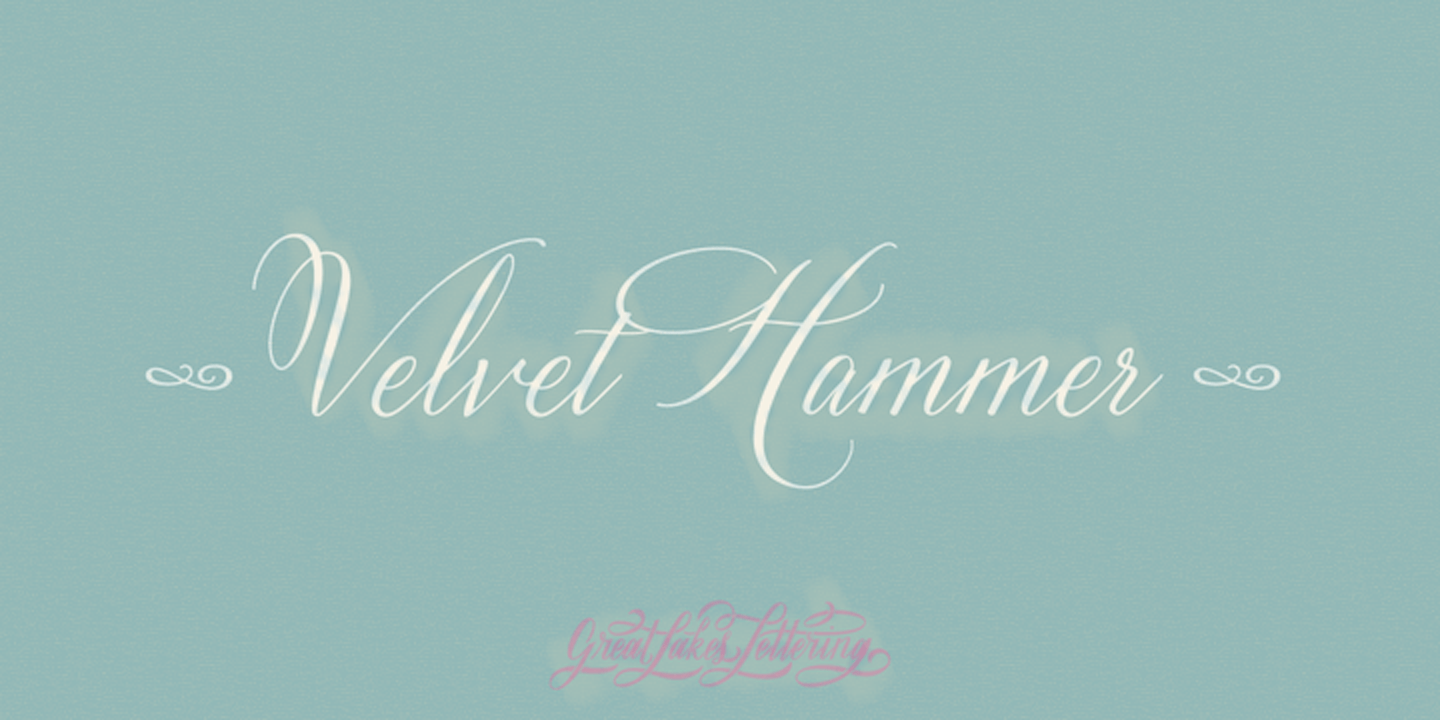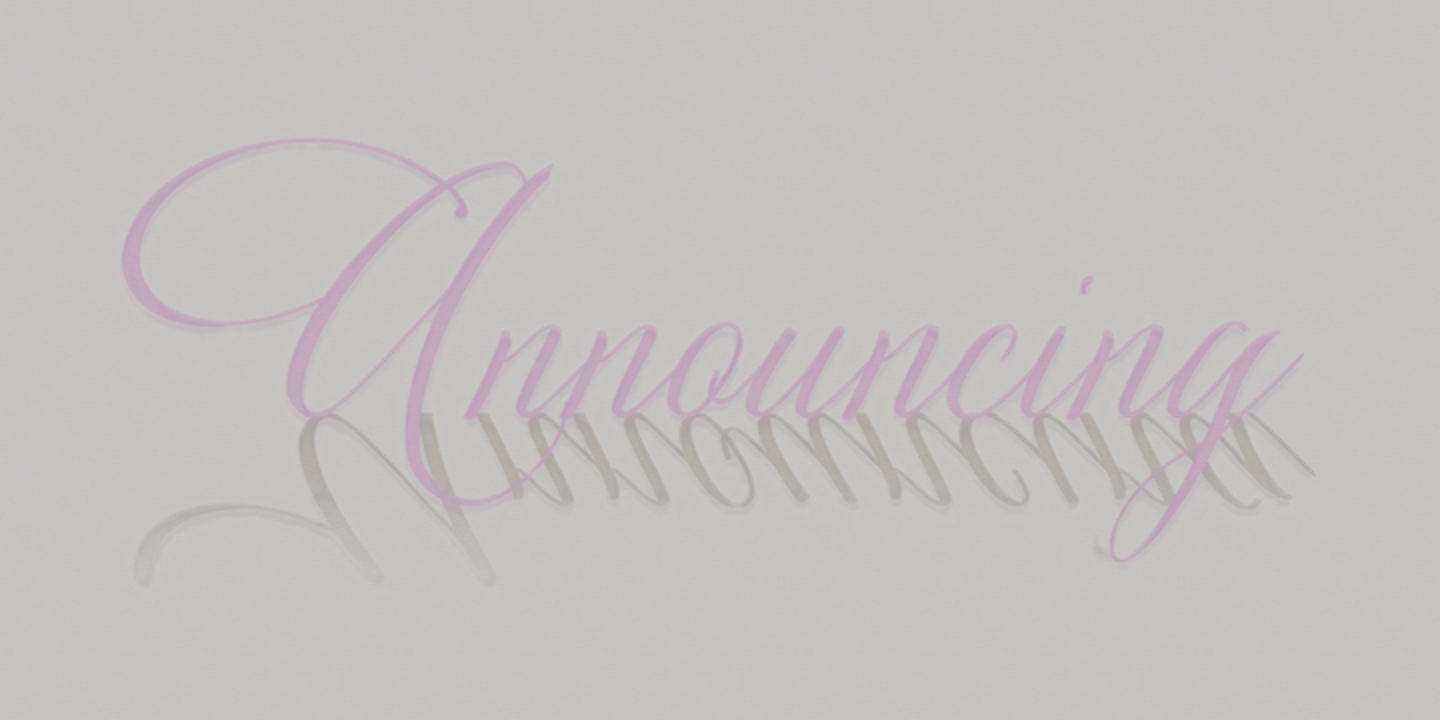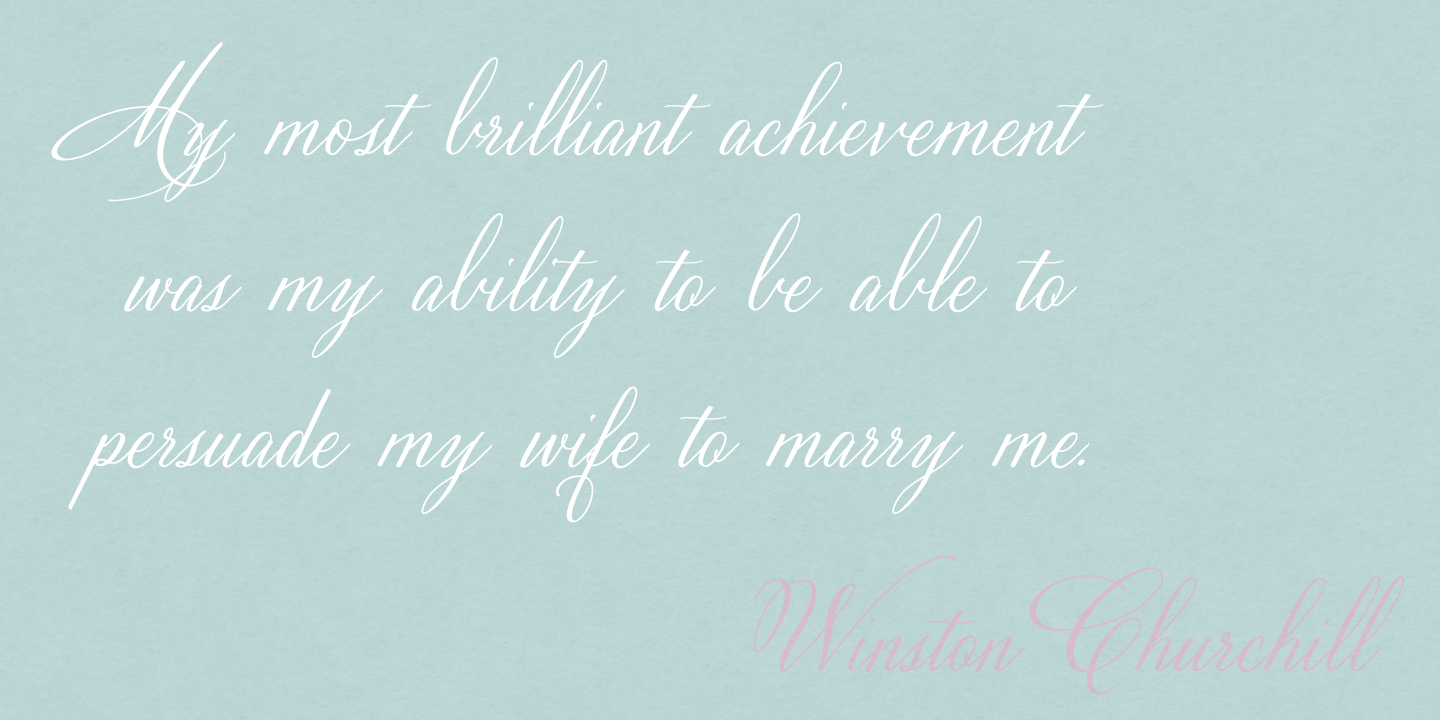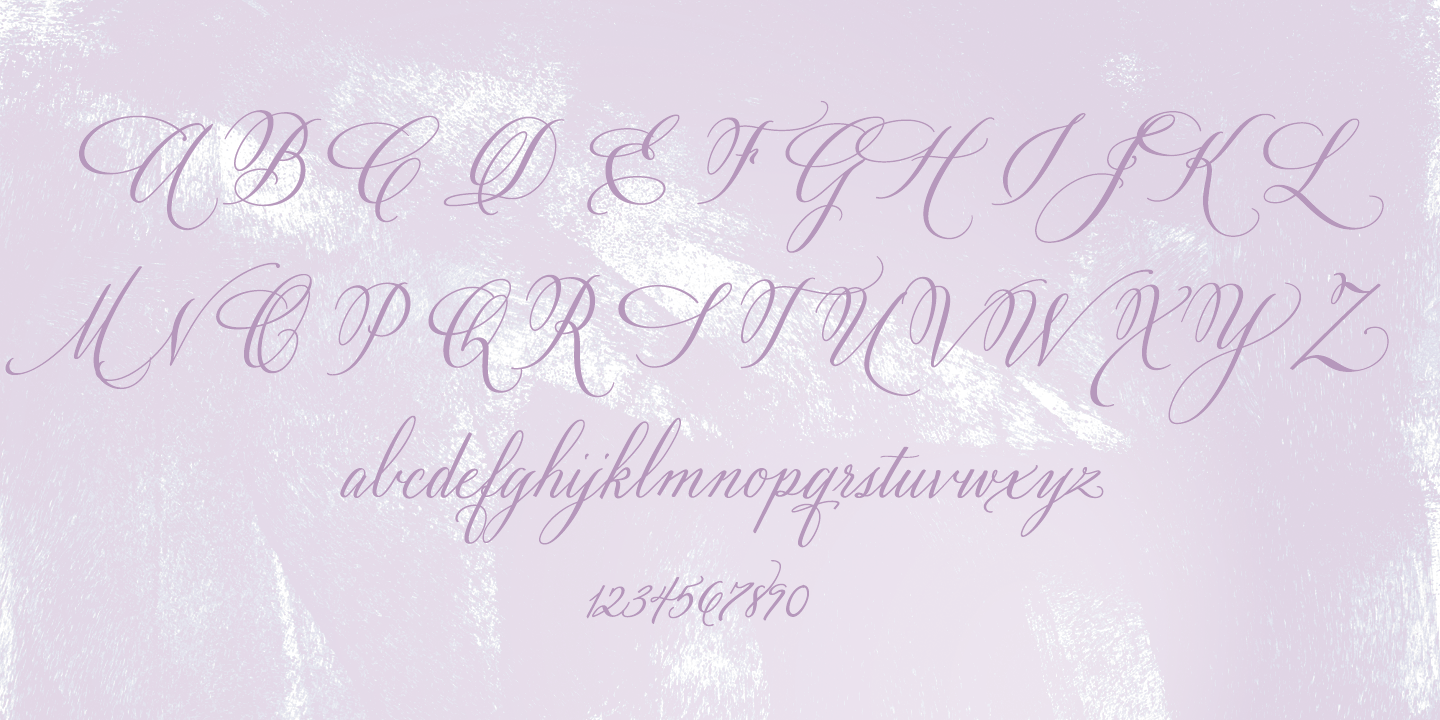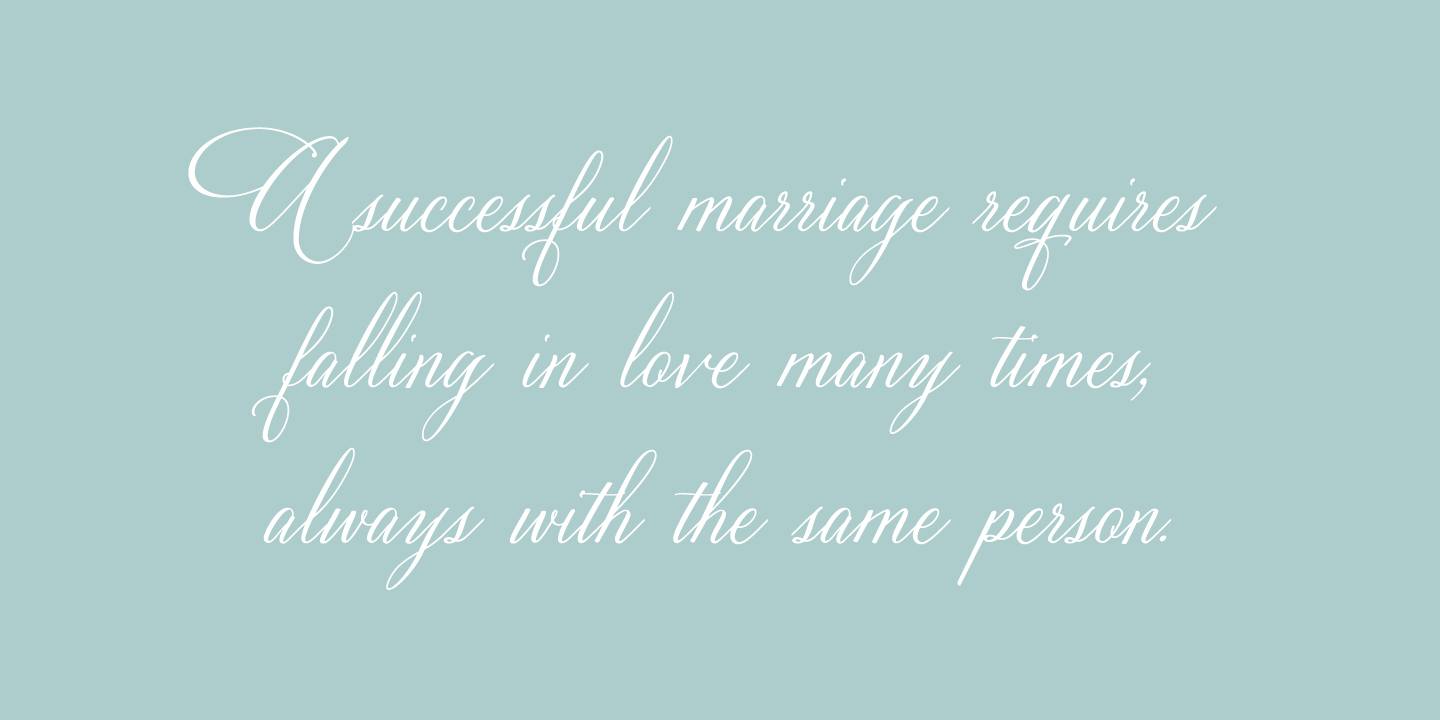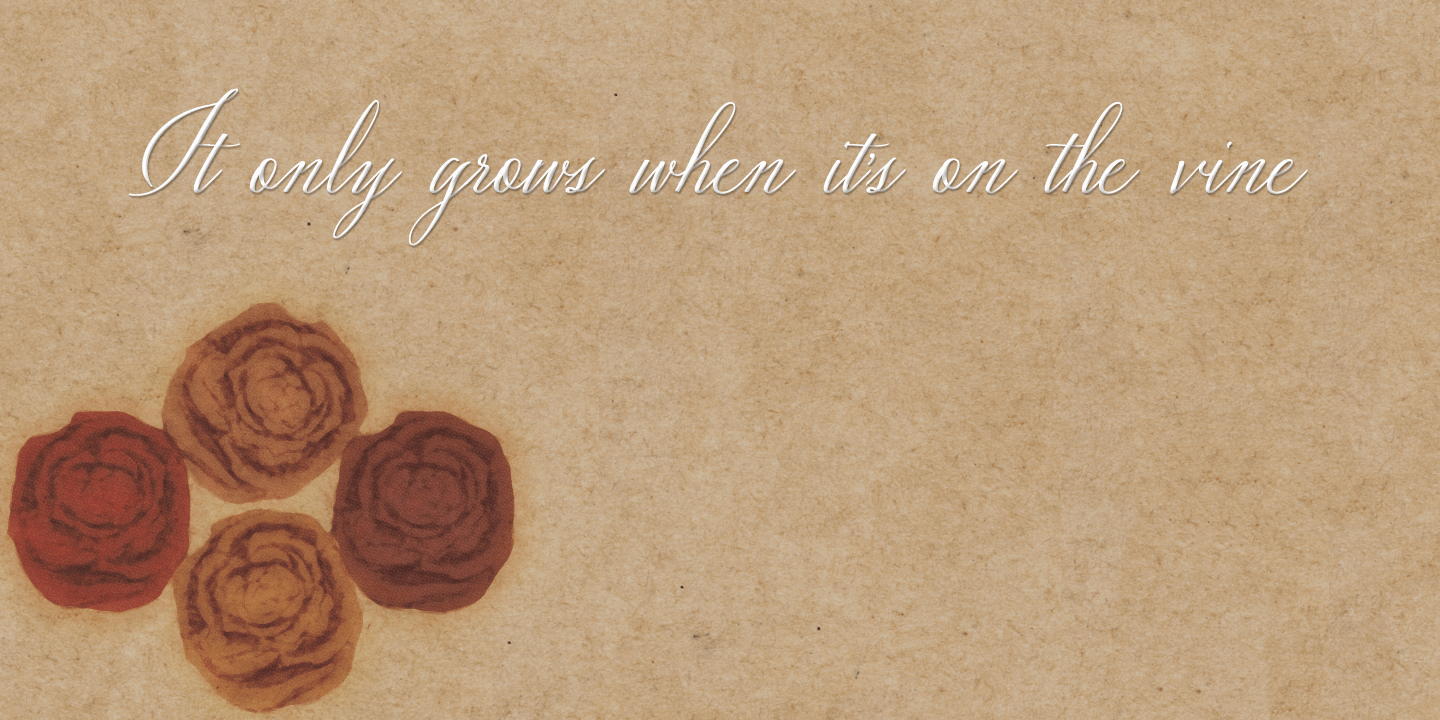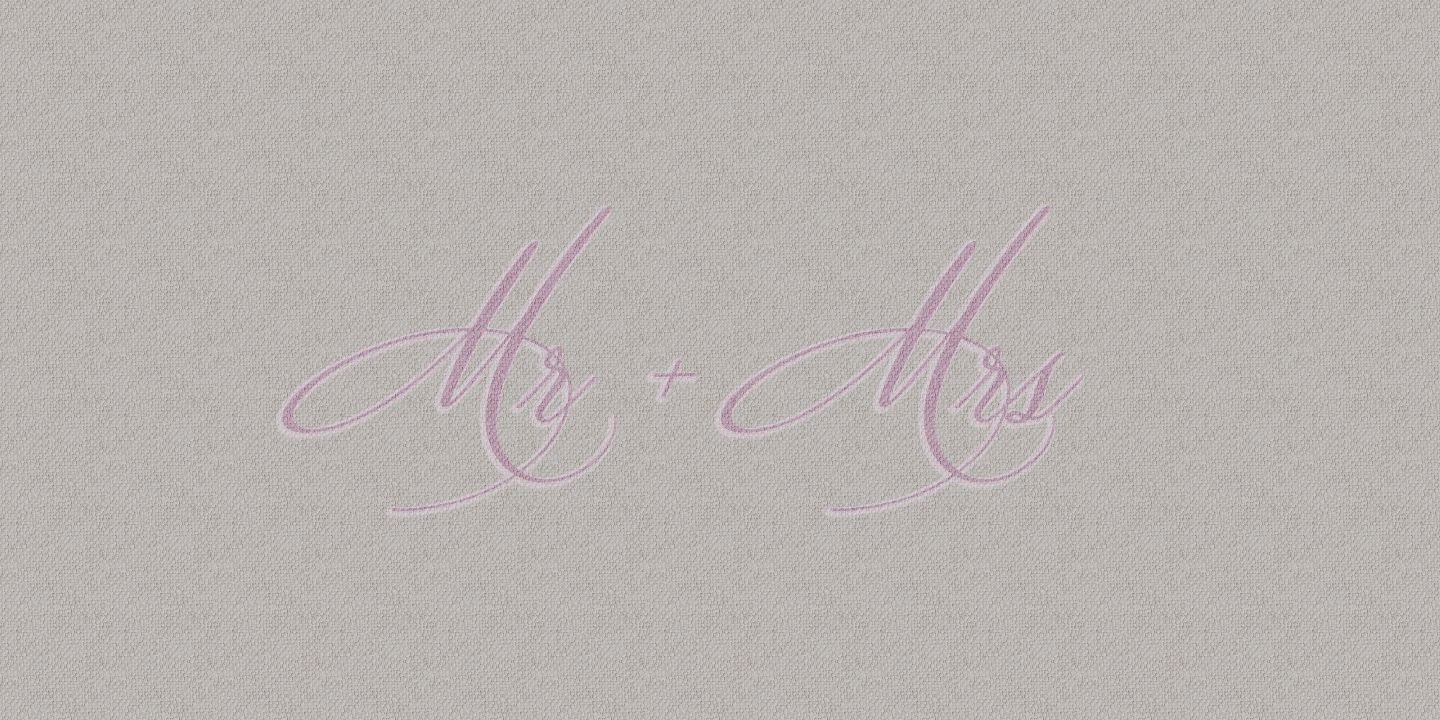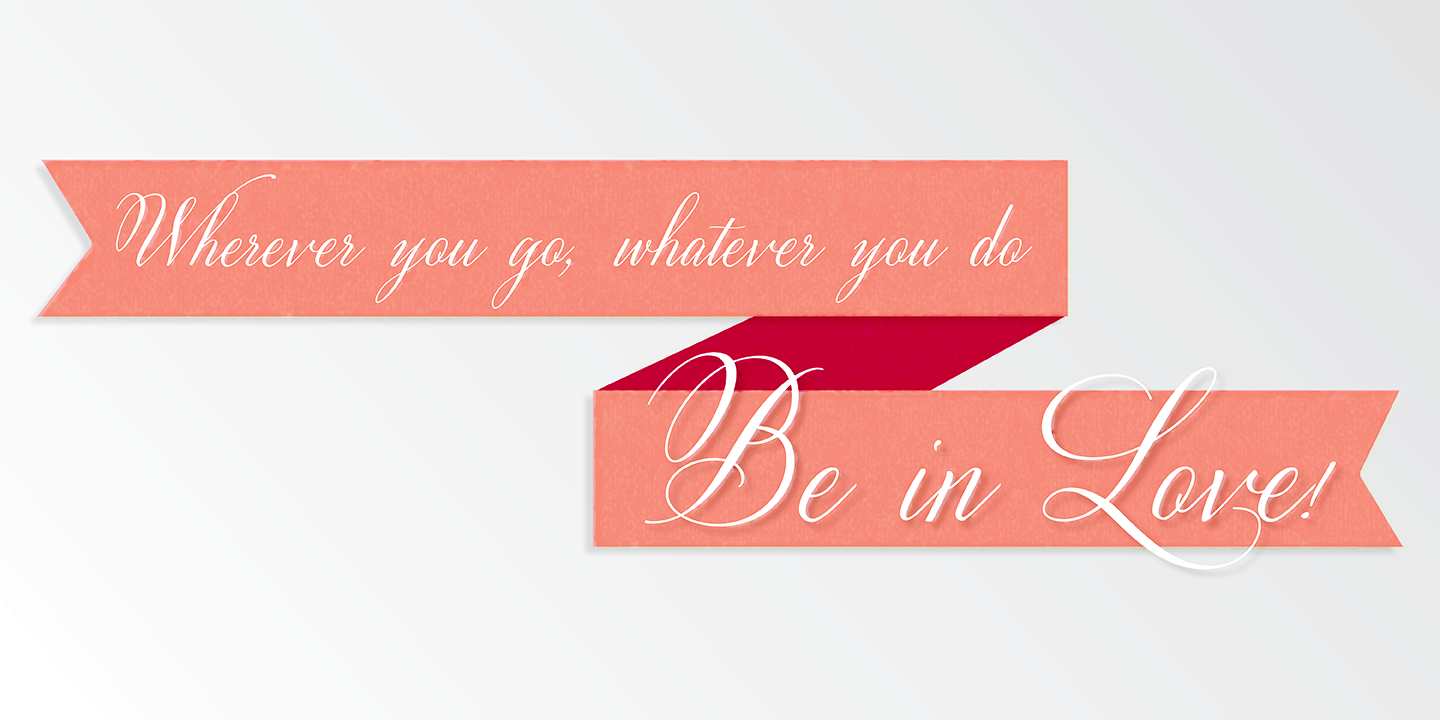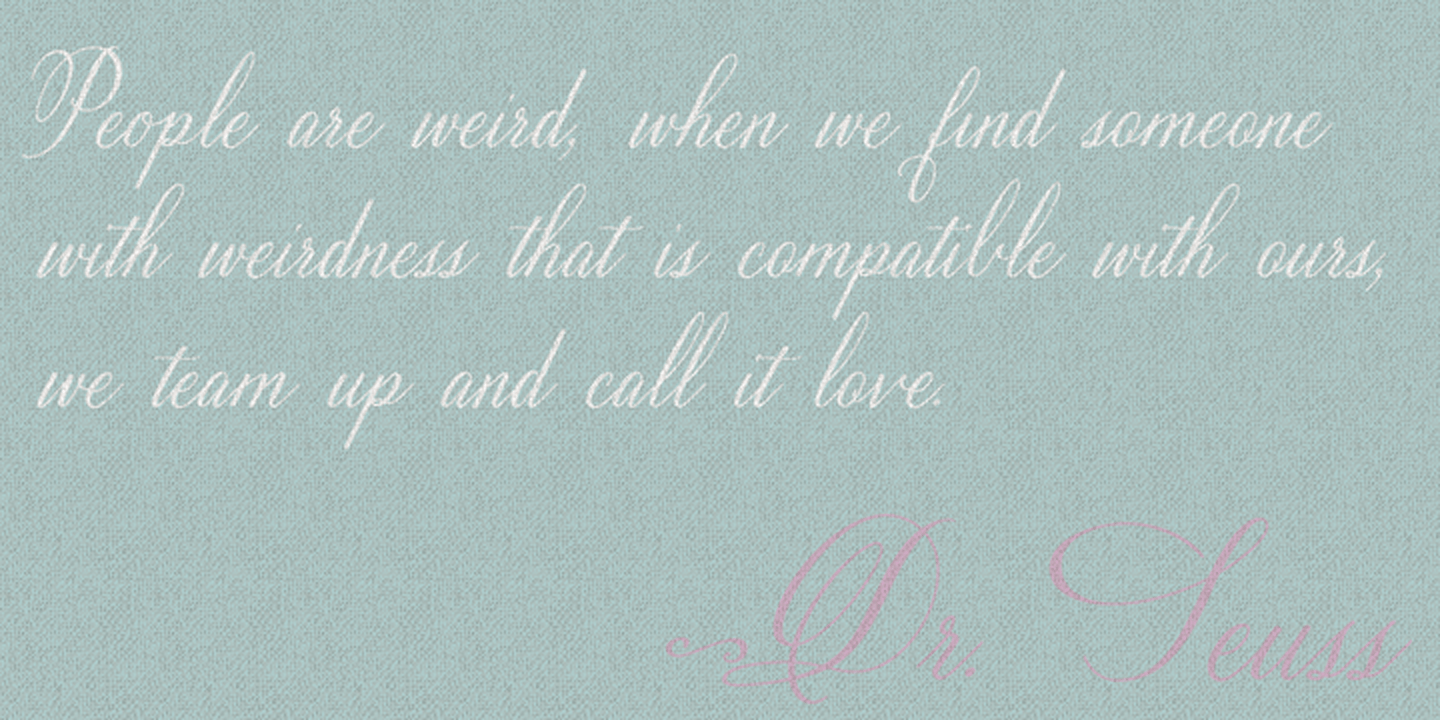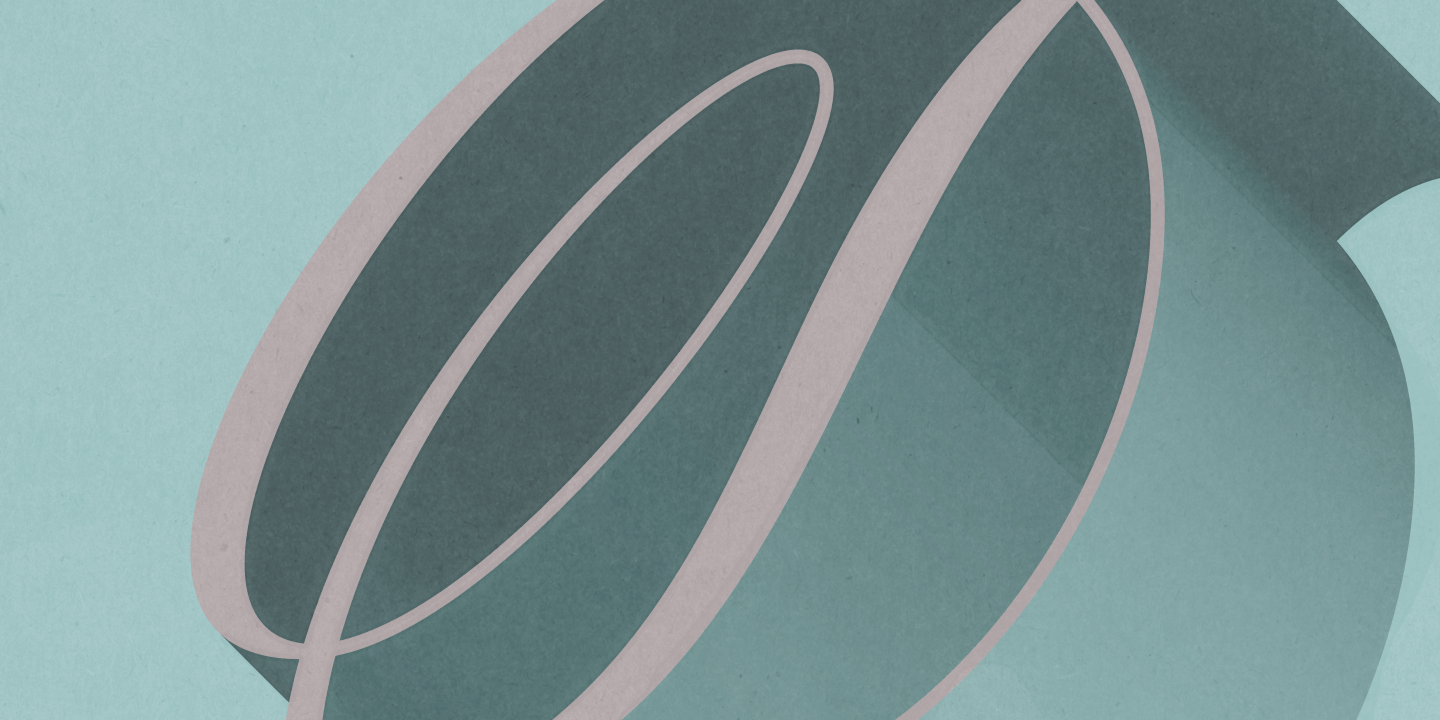
Velvet Hammer
Font Family by Great Lakes Lettering
The Velvet Hammer is a true hand calligraphy font that offers the viewer a sense of strong elegance. This font can be used for all things such as cards, posters, signage, wedding invitations, catalogs, book covers and so much more! The Velvet Hammer's simple unique style can stand strong on its own or sit comfortably side by side with any display or text font!